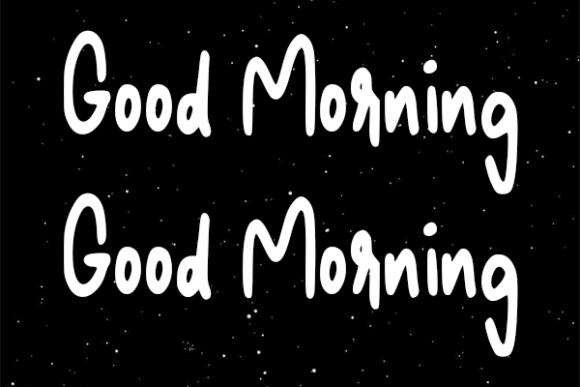
Unlock Your Creativity with Good Morning Font
Are you a designer, crafty individual, or simply someone looking to add a personal touch to your digital creations? Look no further than the Good Morning Font, a versatile and visually stunning typeface that’s perfect for crafting eye-catching logos, branding, and quotes. With its unique and beautiful touch, this font is sure to bring your designs to life!
The Power of Typography: Why Good Morning Font Stands Out
Typography plays a crucial role in design, and the right font can make all the difference. The Good Morning Font is a game-changer, offering a distinctive and captivating style that sets it apart from more traditional typefaces. Every letter has been carefully crafted to exude a sense of elegance, sophistication, and playfulness, making it an excellent choice for a wide range of design applications.
Endless Design Possibilities with Good Morning Font
One of the most exciting aspects of the Good Morning Font is its incredible versatility. Whether you’re creating a logo, branding materials, social media graphics, or inspirational quotes, this font adapts seamlessly to any design style. Its unique charm and character shine through in every letter, ensuring that your creations stand out from the crowd.
Key Features of Good Morning Font
- Unique and Beautiful Touch: Each letter has been meticulously designed to add a touch of magic to your designs.
- Elegant and Playful: The Good Morning Font strikes the perfect balance between sophistication and whimsy, making it suitable for a wide range of design projects.
- High-Quality Design: Crafted with precision and attention to detail, this font is a testament to exceptional design.
- Easy to Read: Despite its unique style, the Good Morning Font remains clear and legible, ensuring your message is always communicated effectively.
How to Use Good Morning Font in Your Designs
Integrating the Good Morning Font into your design workflow is incredibly straightforward. Here are a few tips to get you started:
- Pair it with Complementary Fonts: Combine Good Morning Font with simpler typefaces to create visual interest and hierarchy in your designs.
- Experiment with Colors: Don’t be afraid to play around with different colors and gradients to enhance the font’s unique features.
- Add Texture and Patterns: For an extra creative touch, consider adding subtle textures or patterns to your text.
Why Designers and Crafters Love Good Morning Font
The Good Morning Font has quickly become a favorite among designers and crafters, and for good reason. Its ability to add a personal and creative touch to any project makes it an invaluable resource. Here are a few reasons why:
- Time-Saving: With Good Morning Font, you can create stunning designs in a fraction of the time it would take with more complex typefaces.
- Consistency: The font’s cohesive look and feel ensure that your branding and designs maintain a consistent aesthetic.
- Inspiration: The unique style of Good Morning Font can spark creativity and inspire new ideas for your designs.
In the world of design, typography is everything. With the Good Morning Font, you have the power to create visually stunning and engaging designs that capture attention and inspire. Whether you’re a seasoned designer or a crafty individual looking to add a personal touch to your projects, this font is sure to exceed your expectations. So why wait? Unlock your creativity today with the Good Morning Font and discover a world of limitless design possibilities!
| Font Name | Good Morning Font |
| Author | TelemlyCreations |